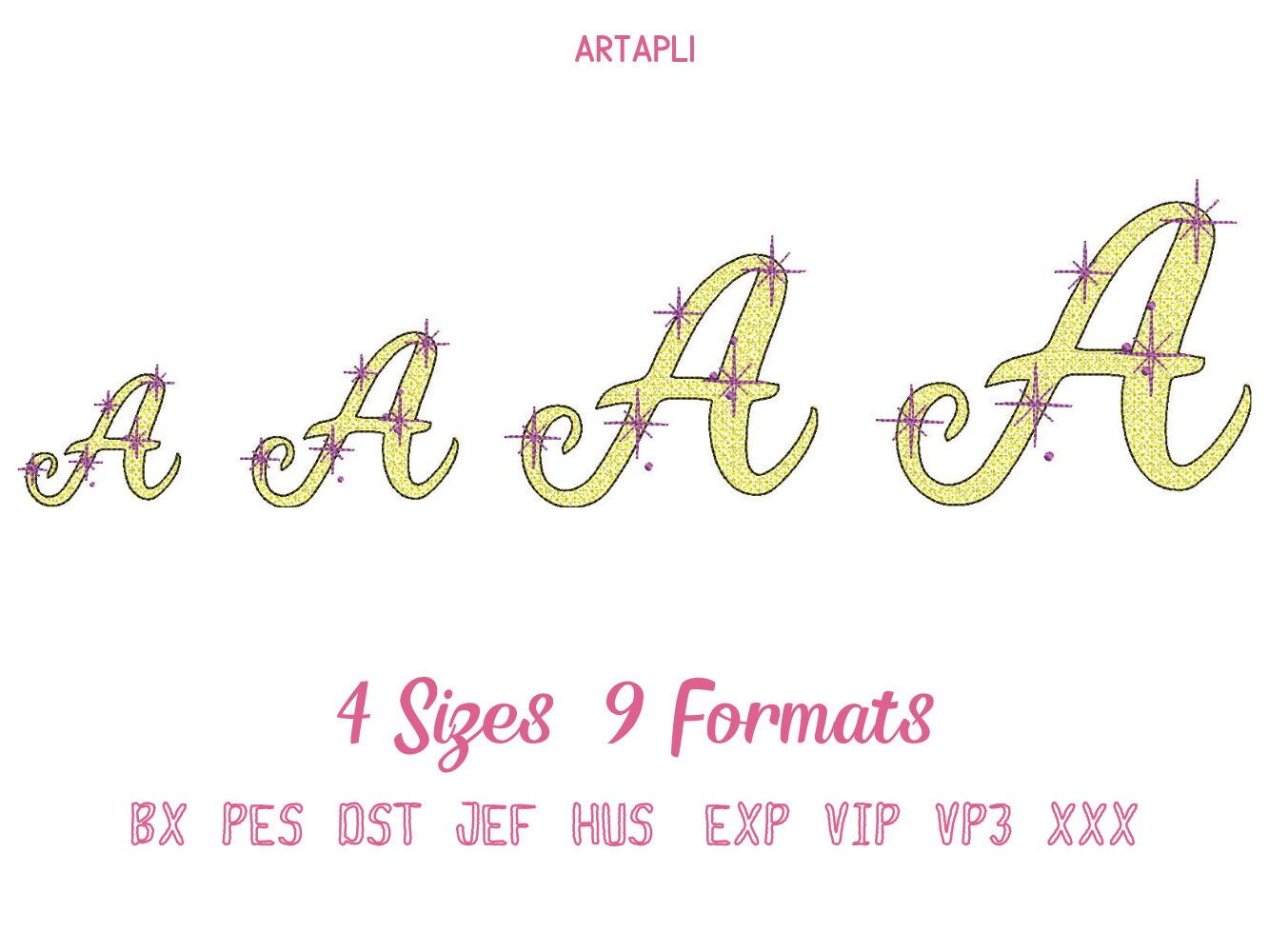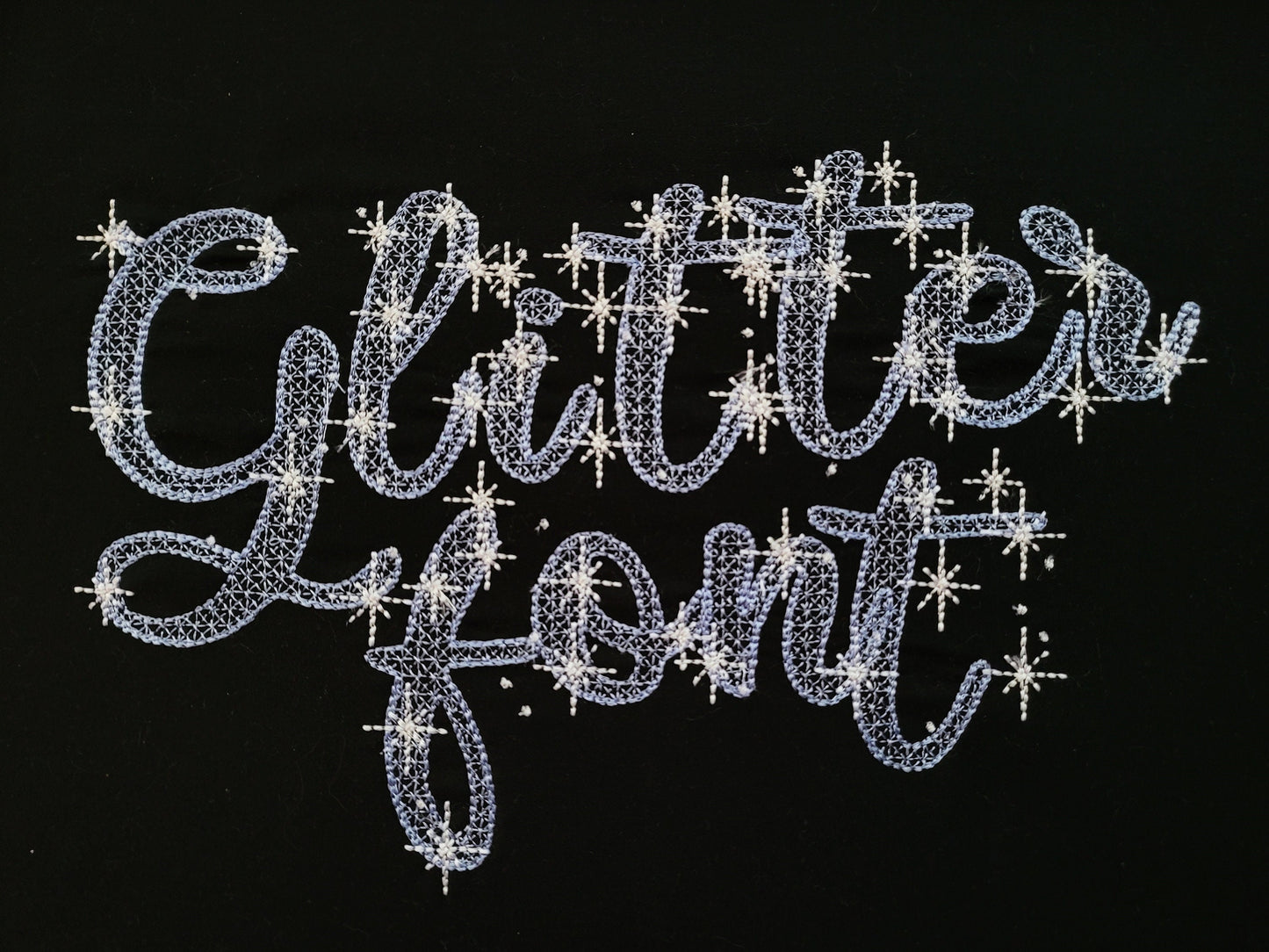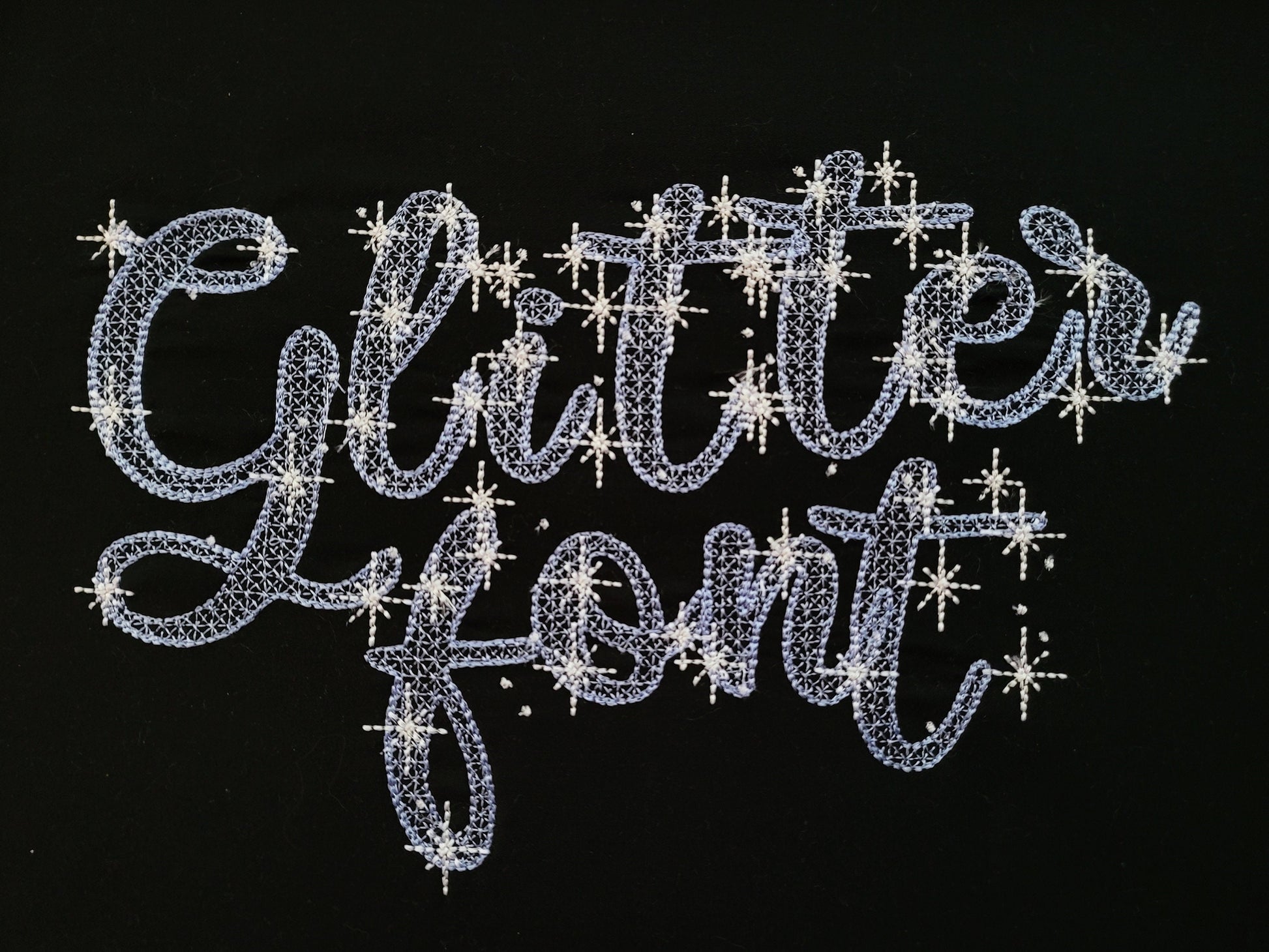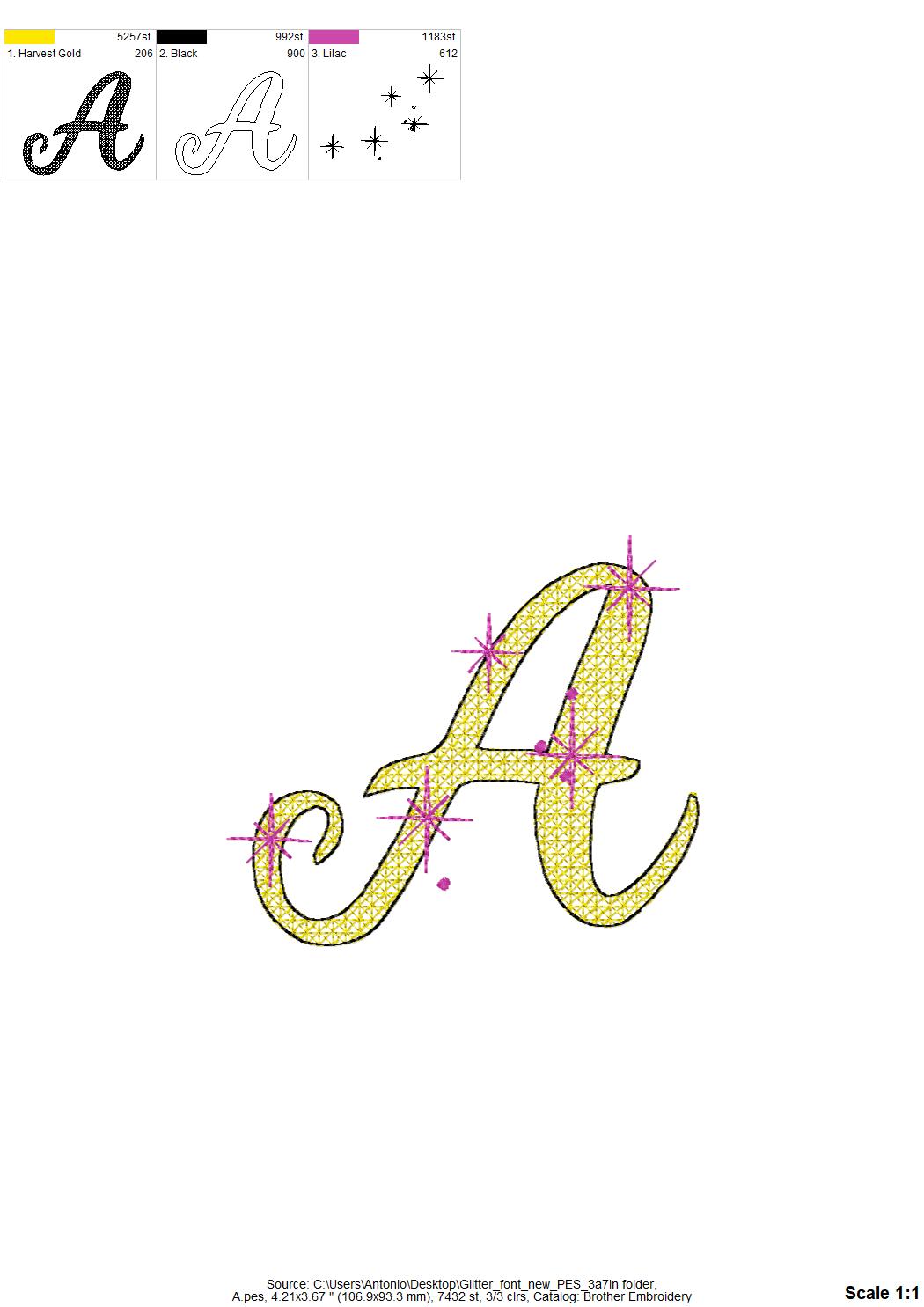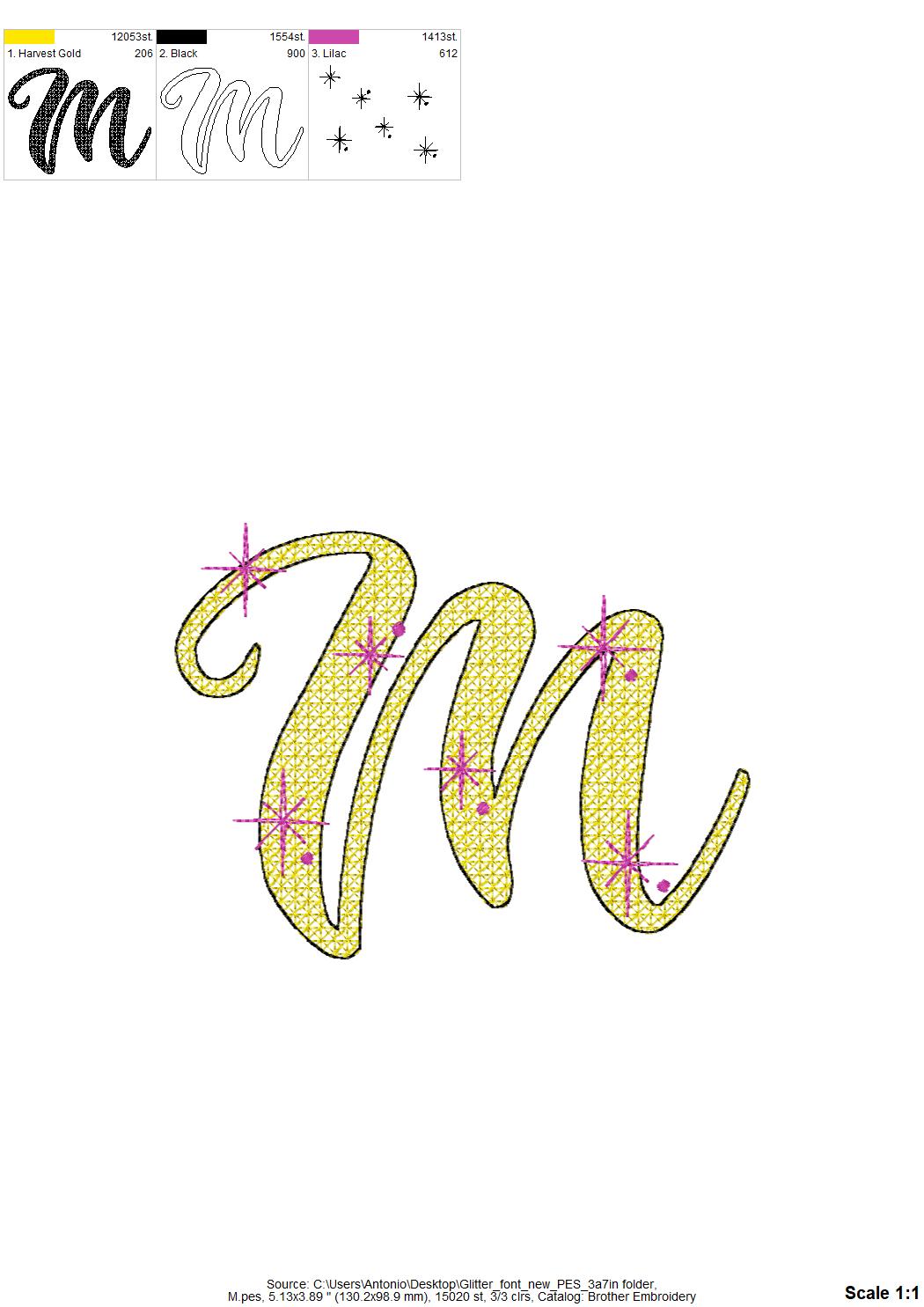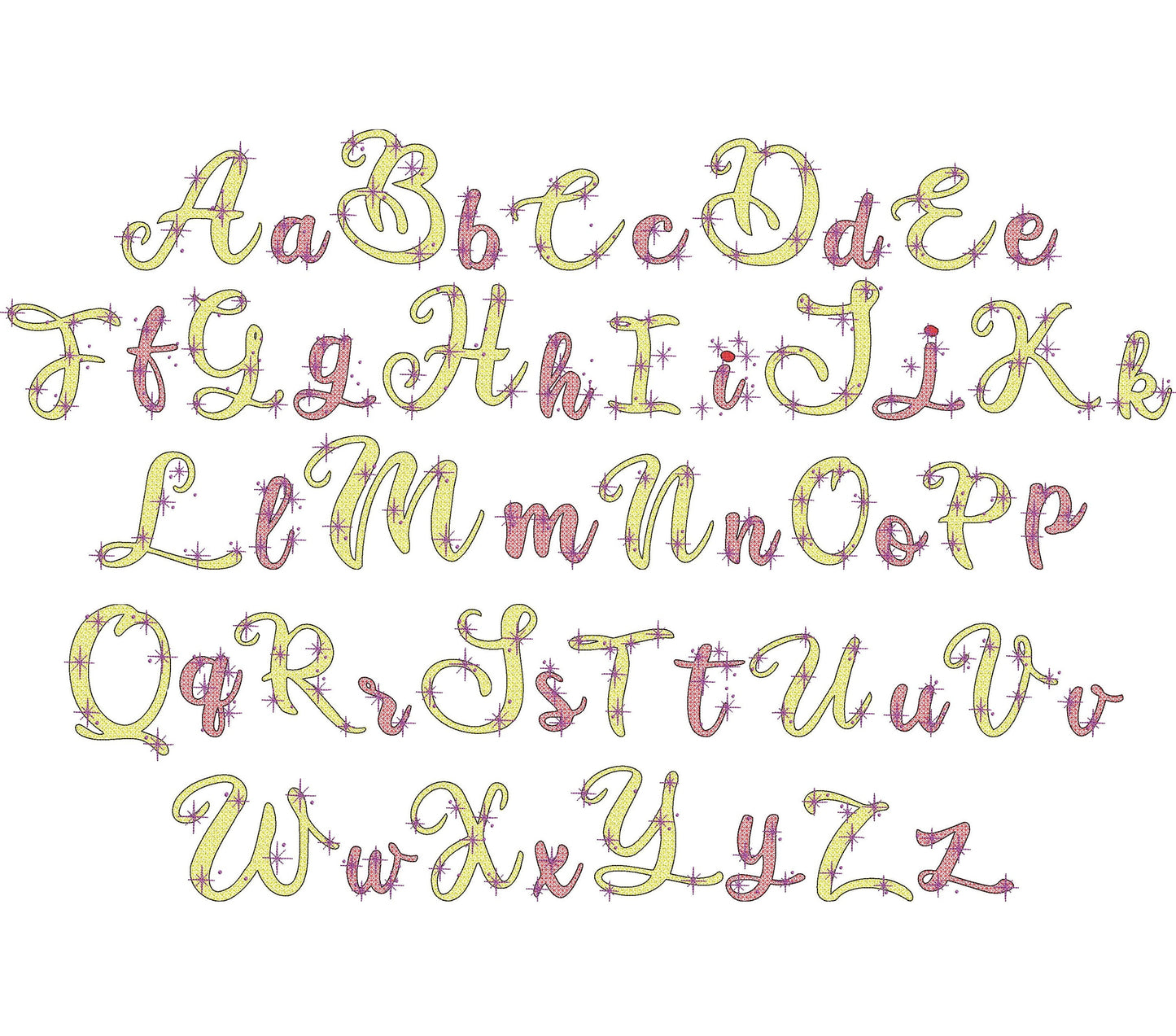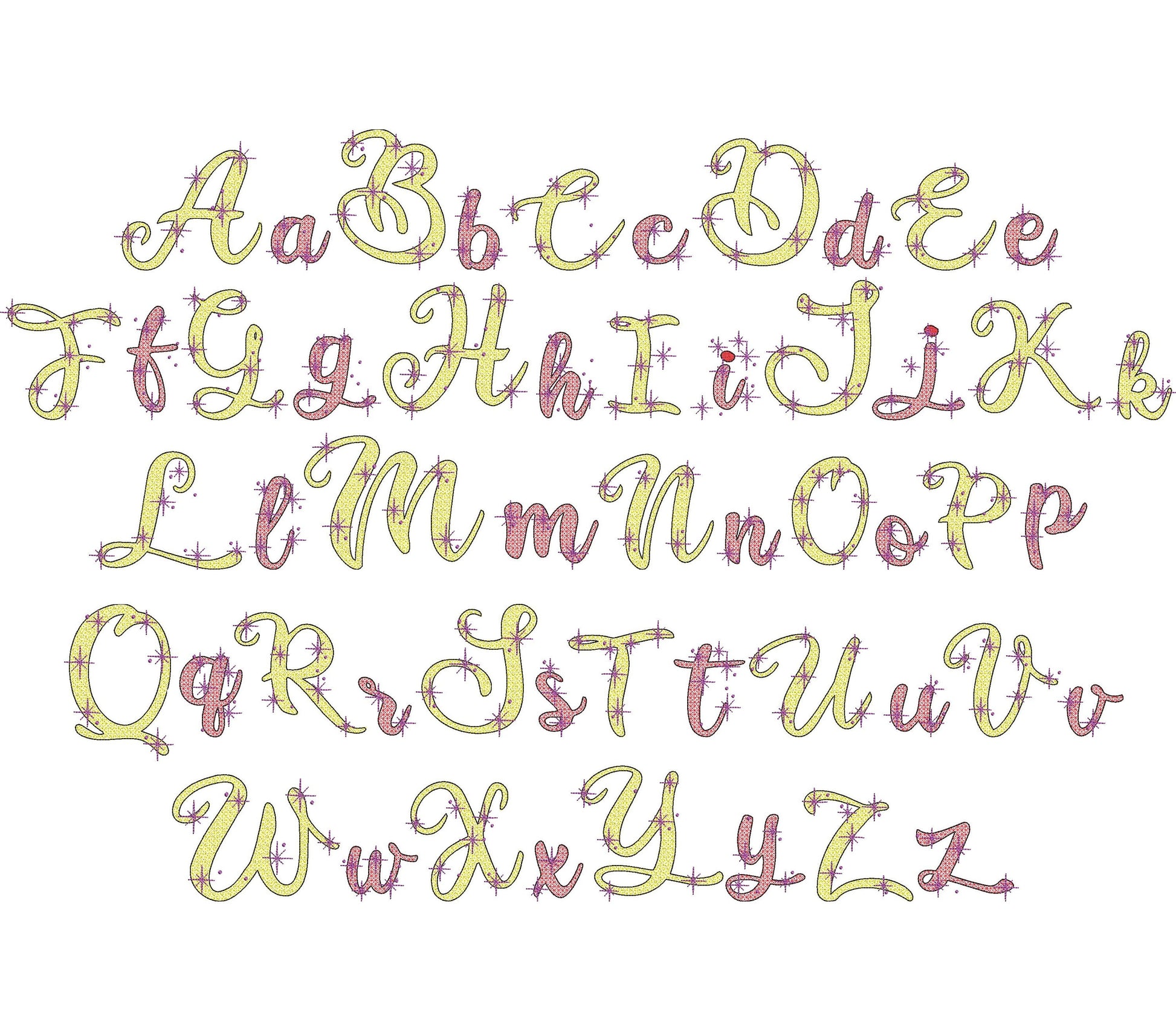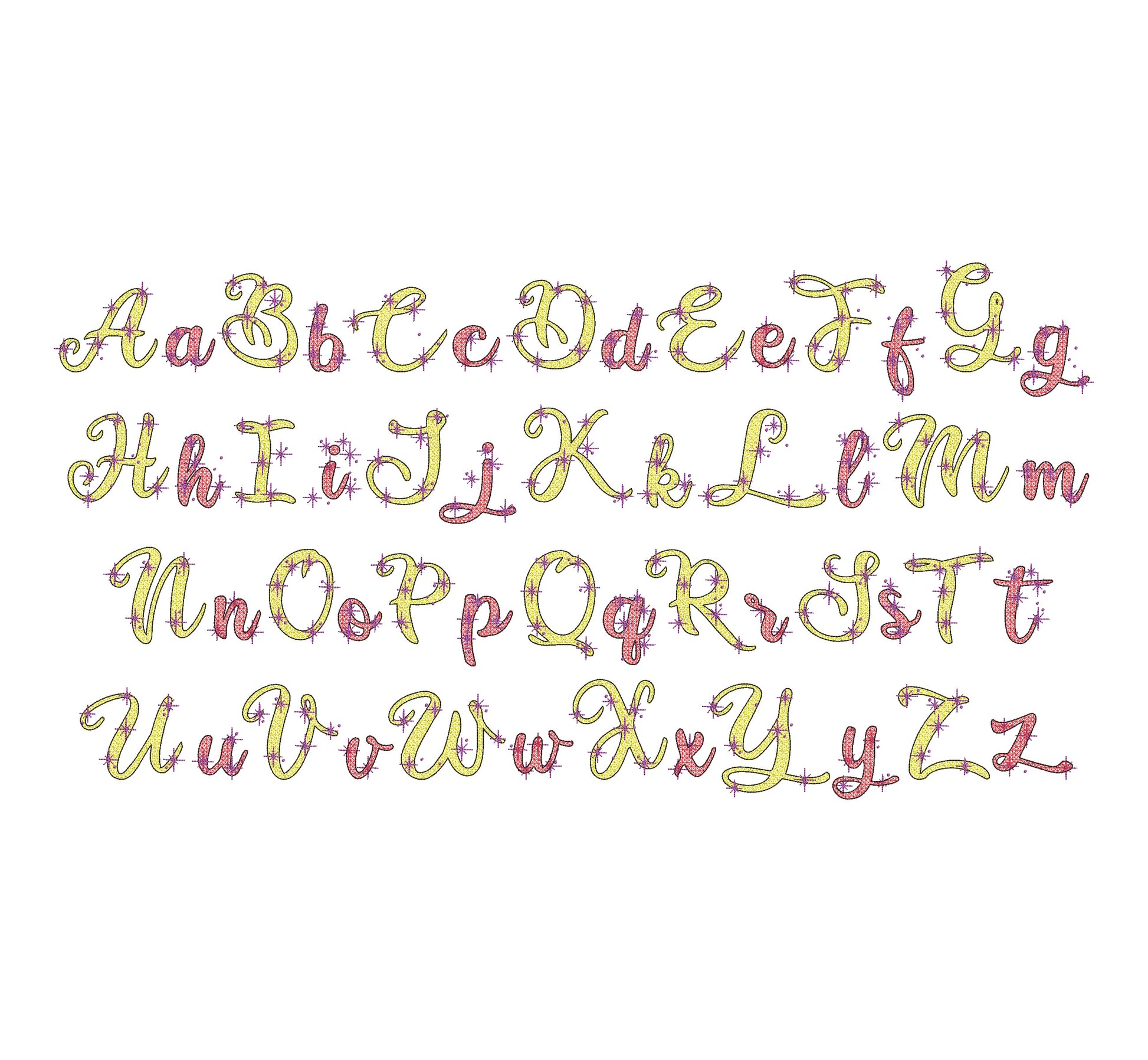
Sparkling Font Night Starry Sky
Included: Uppercase A-Z, Lowercase a-z, Numbers 0-9, Punctuation
A sparkling night sky font with little stars, stitched light like lace. Lovely for girls' names, princess shirts, pillows and bags.
Uppercase and lowercase letters in seven sizes: 1.5, 1.6, 1.8, 1.9, 2.5, 3.7 and 4.4 inches; the three smallest sizes also have numbers 0 to 9. The lacy stitching lets the fabric show through.
• Starry sky sparkling font
• Uppercase and lowercase letters
• 7 sizes, 1.5 to 4.4 in
What a fun font and perfect for any girly girl! Love it!
This font is super cute. I cannot wait to try it.